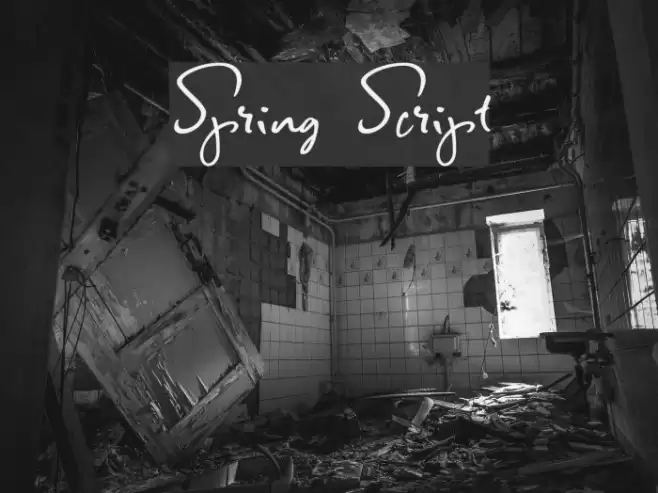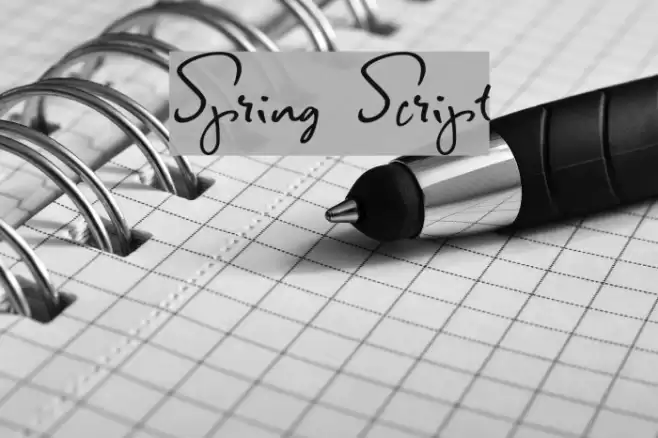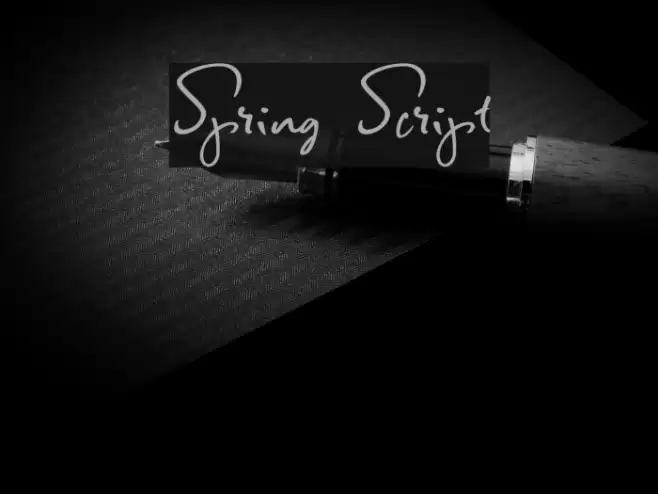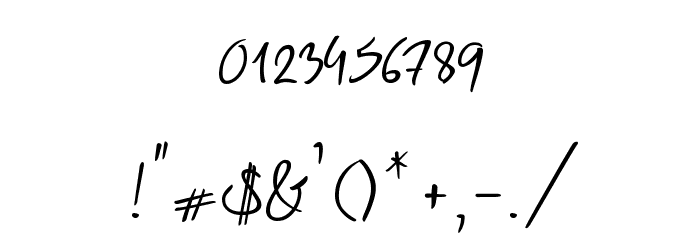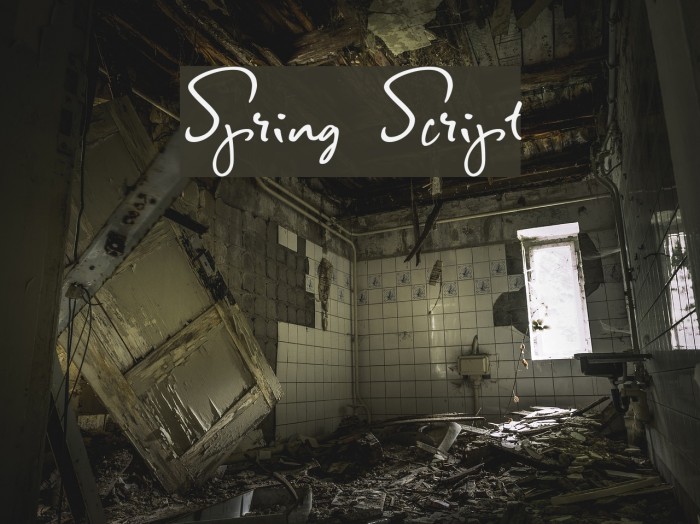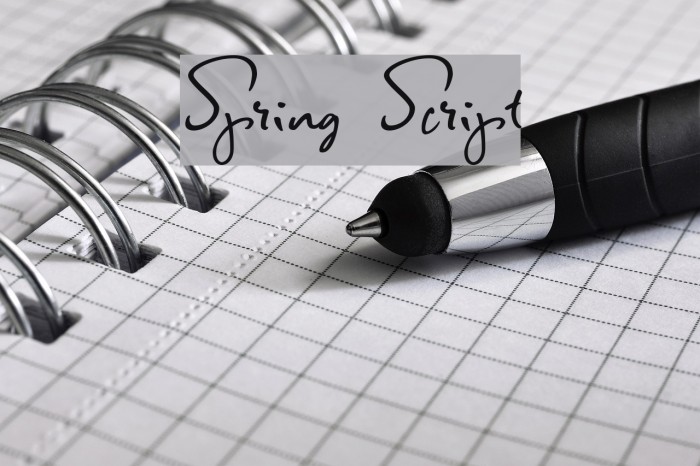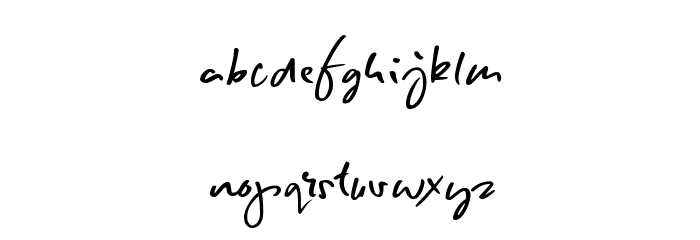
Spring Script Font
Spring Script Description
This font exudes a lively and dynamic energy, characterized by its fluid and cursive script style. The letters are connected in a seamless flow, creating a sense of movement and elegance. The strokes vary in thickness, adding a playful contrast that enhances its handwritten appeal. It's perfect for projects that require a personal touch, such as invitations, greeting cards, or branding that aims to convey warmth and creativity. The font maintains legibility while offering a unique flair, making it suitable for both digital and print media.
A lively, cursive script font with fluid, connected letters and playful contrast from Handwritten fonts.
- Proposed Projects: Invitations, greeting cards, personal branding, creative projects.
- Use Case: Logos, Headlines, Decorative text